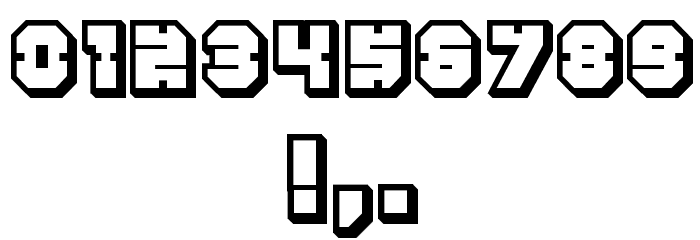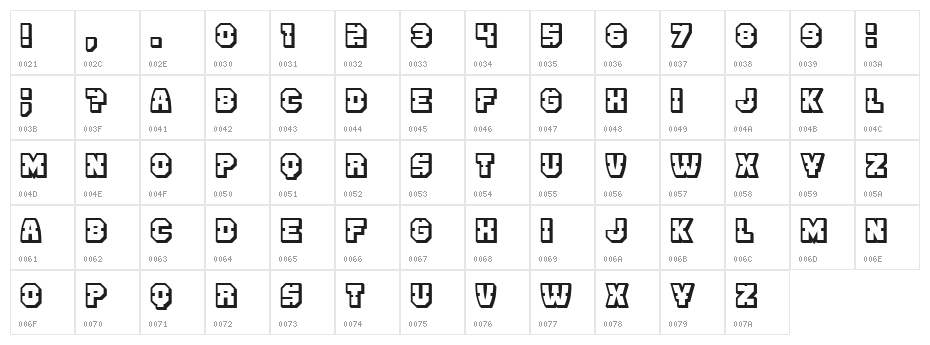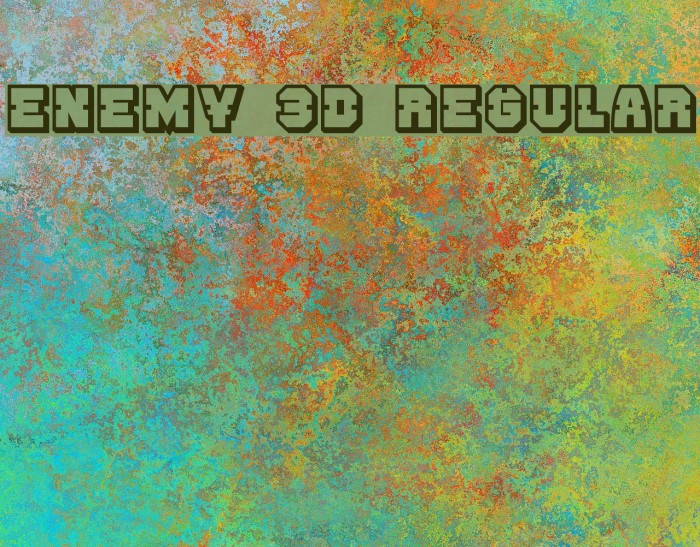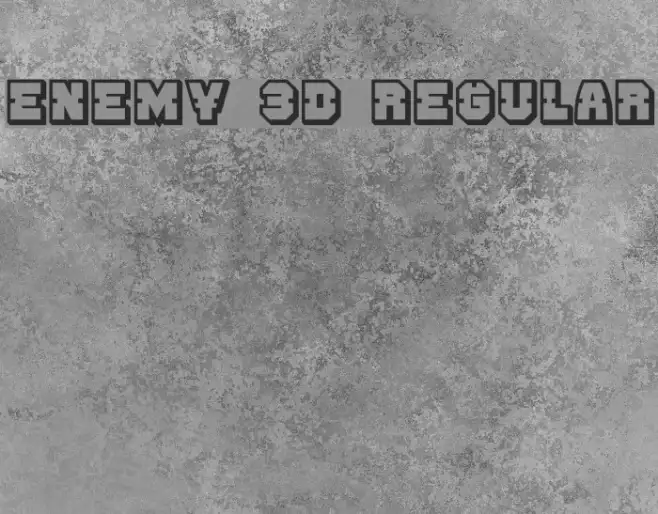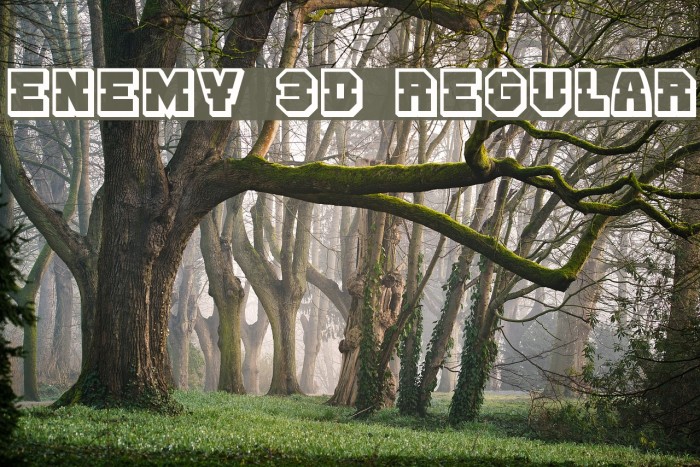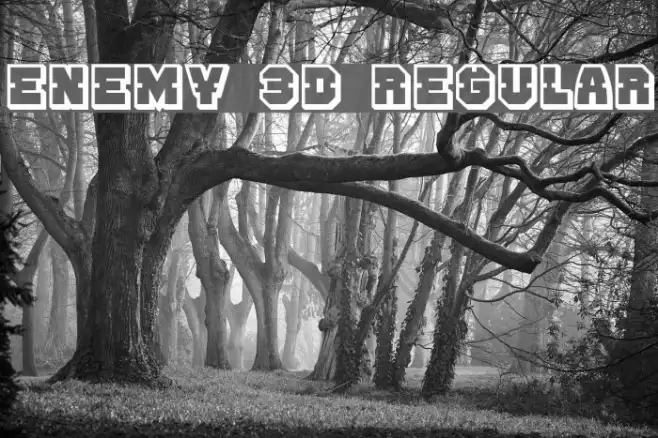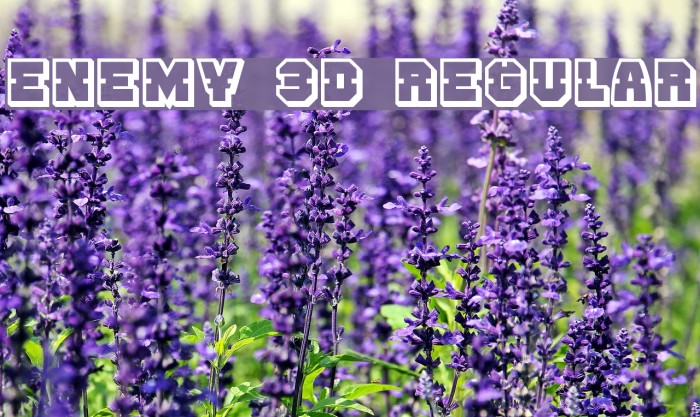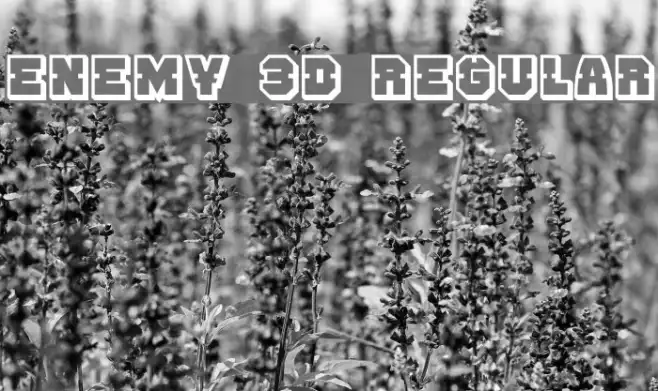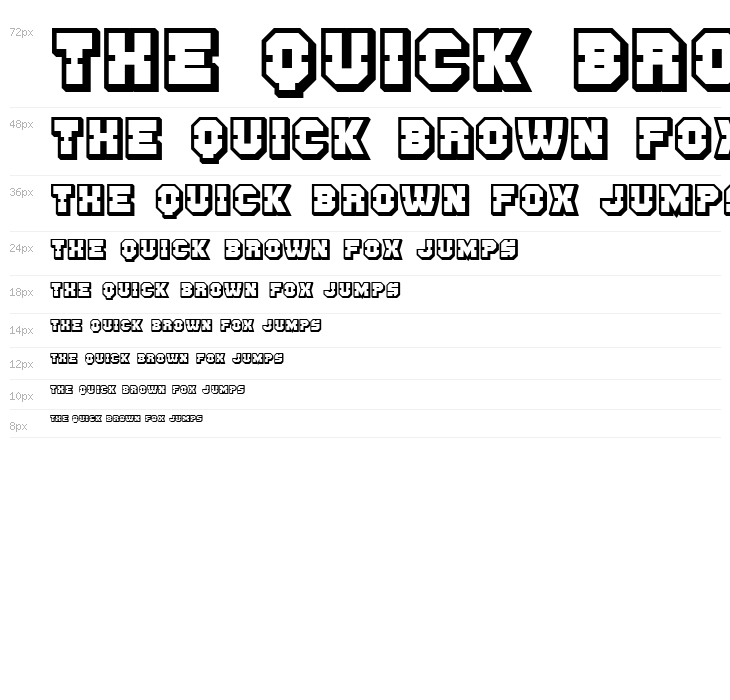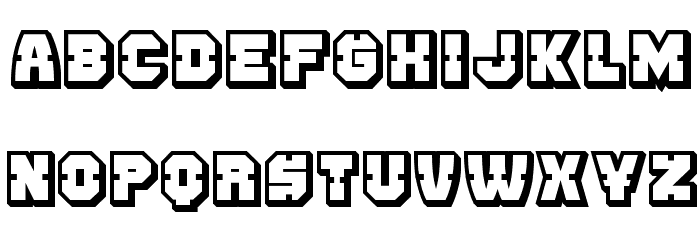
Enemy 3D Regular Font
Enemy 3D Regular Description
This font features a bold, three-dimensional design with a strong, geometric structure. Each character is outlined with a thick, black border, creating a striking contrast against the white interior. The angular, blocky shapes give it a futuristic and industrial feel, reminiscent of digital or video game aesthetics. The uppercase and lowercase letters maintain a consistent style, with the numbers and special characters following suit. The font's design is both eye-catching and legible, making it suitable for attention-grabbing headlines or titles.
| Proposed Projects | Ideal for video game titles, tech-themed posters, or any project requiring a modern, digital look. |